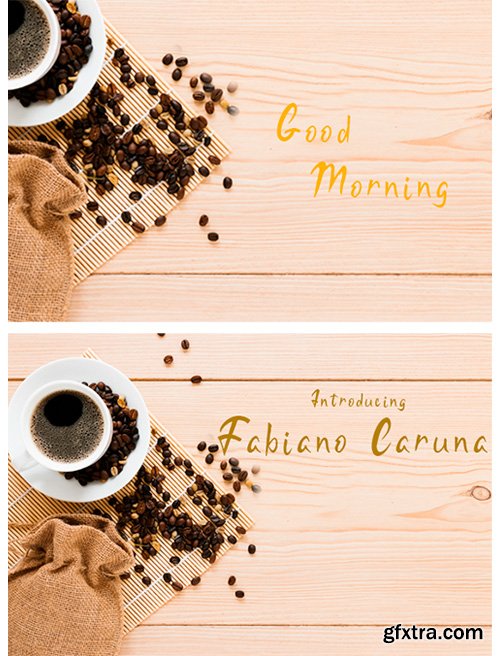
Fabiano Caruna Font
Fabiano Caruna is a sweet and charming script font that celebrates the sweeter things in life. Use it to add a casual vibe to any design idea!